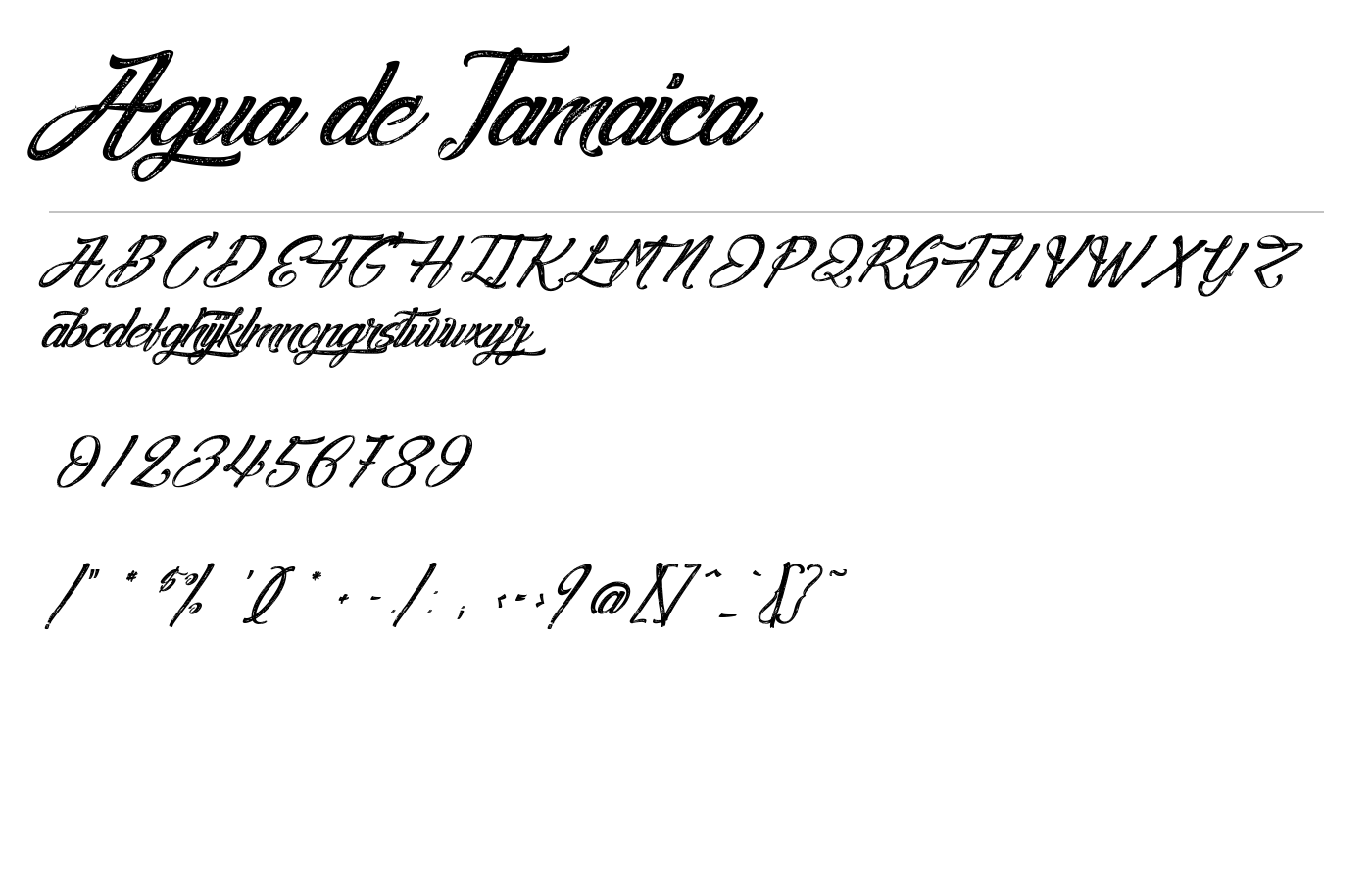
Agua de Jamaica is an elegant script font with a handwritten feel, featuring fluid, connected strokes and a slightly textured, vintage look. Its moderate weight and normal width give it a graceful, yet approachable personality, making it ideal for invitations, branding, and stylish headlines where a touch of classic charm and personal warmth is desired. This font works well in contexts that seek to combine sophistication with a casual, artistic flair.
Agua de Jamaica Font
About Agua de Jamaica Font
| Font family | Agua de Jamaica Font |
| Designer | Cataleya Butcher |